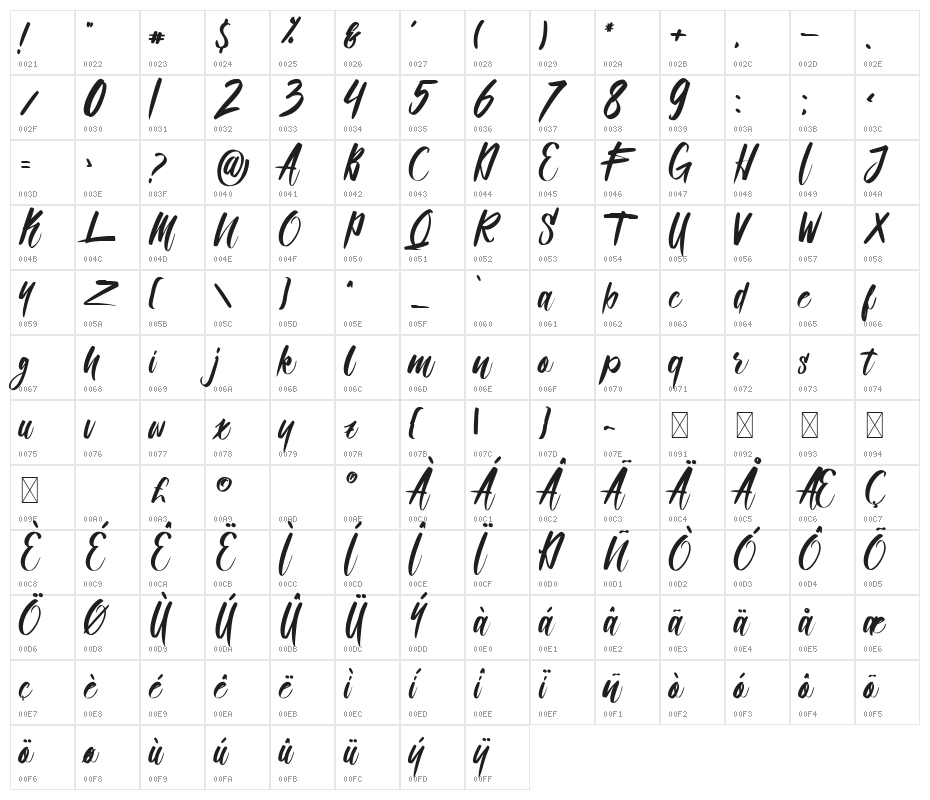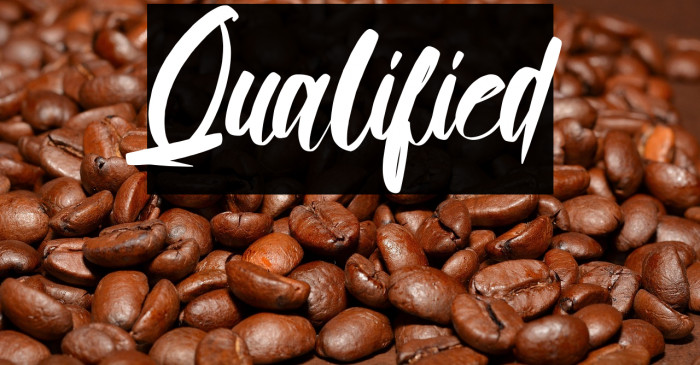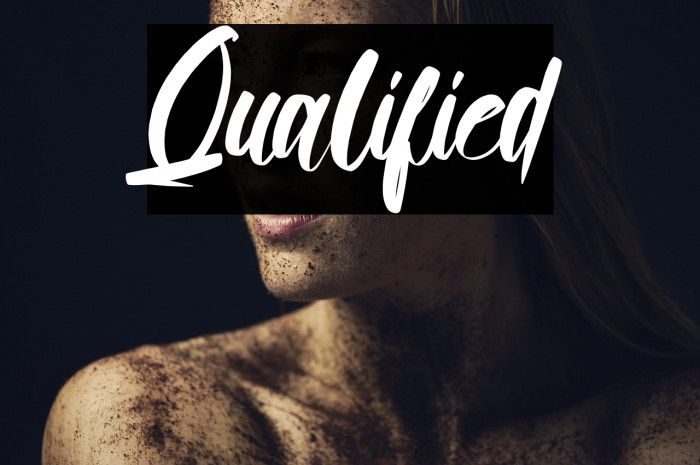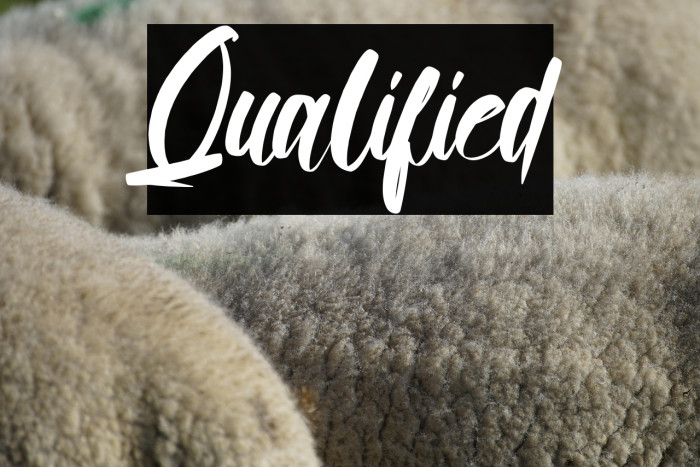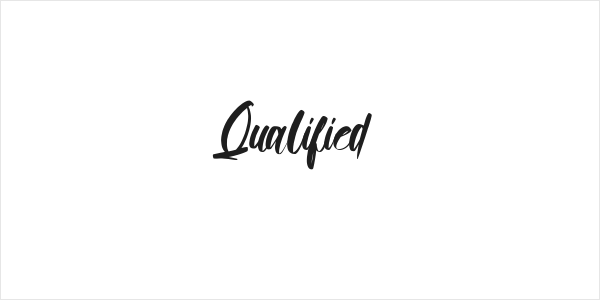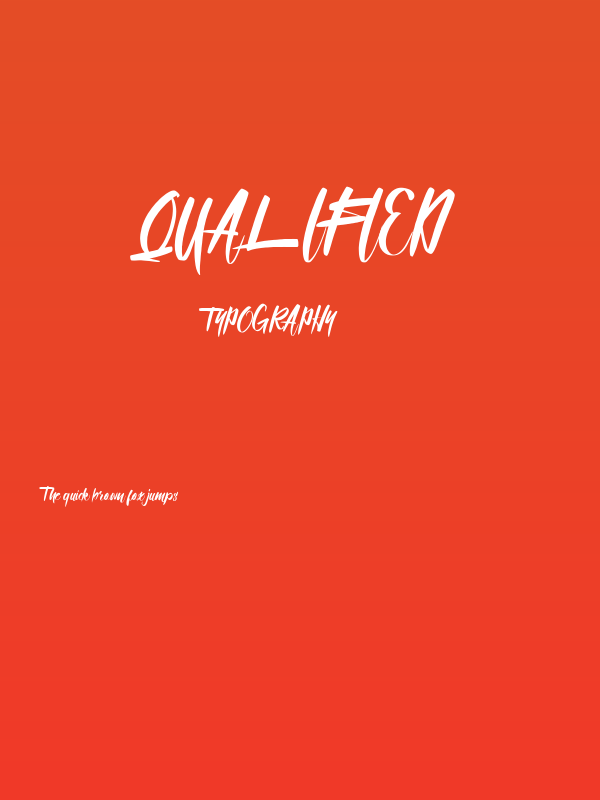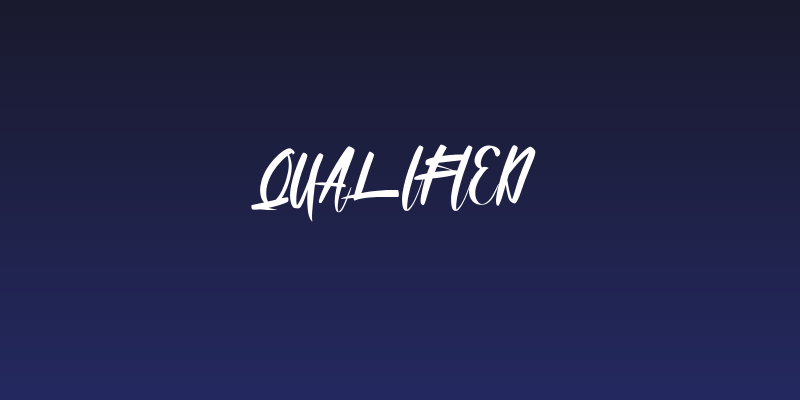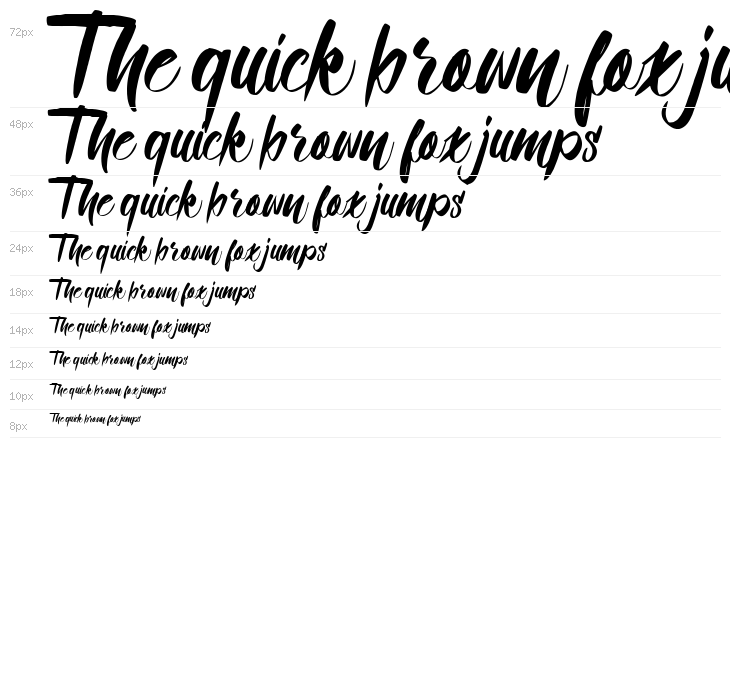
Qualified Font
Qualified Description
This font features a bold and expressive handwritten style, characterized by its dynamic and fluid strokes. The letters exhibit a natural, brush-like appearance with varying thickness, creating a sense of movement and energy. The uppercase and lowercase letters maintain a consistent style, with some letters having unique flourishes that add to the overall aesthetic. The numbers and special characters are designed to match the lively and artistic feel of the alphabet. This font is ideal for projects that require a personal touch or a creative flair.
Proposed ProjectsThis font is perfect for branding, logo design, invitations, posters, and social media graphics where a personal and artistic touch is desired.